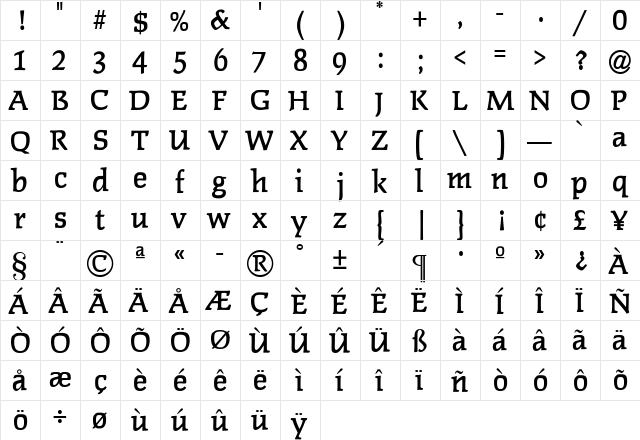
Polaris Regular Font Preview
Polaris Regular
Design Context for Polaris Typeface
Polaris takes a measured approach to typography — its balanced proportions and neutral character make it a reliable workhorse for both digital and print work.
Pro Tip: Use Polaris in both headline and body roles to test its range before committing to a single application.